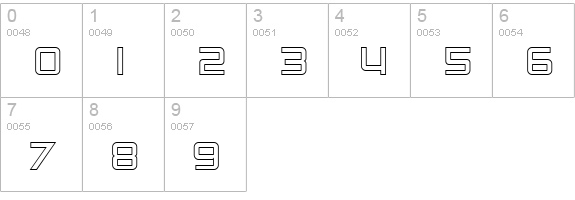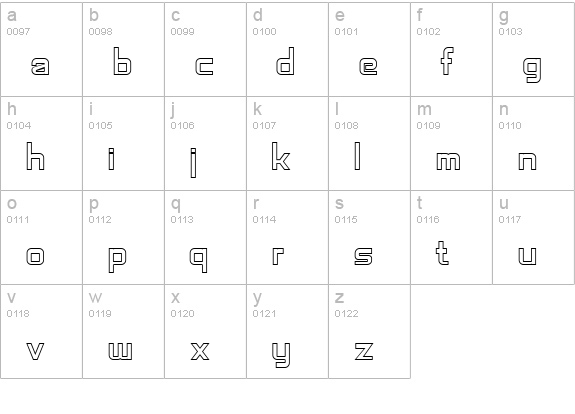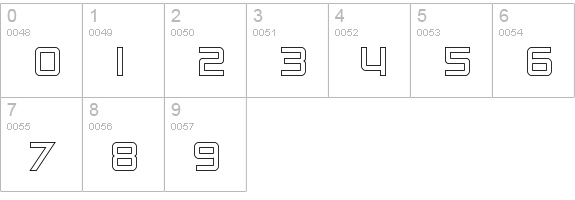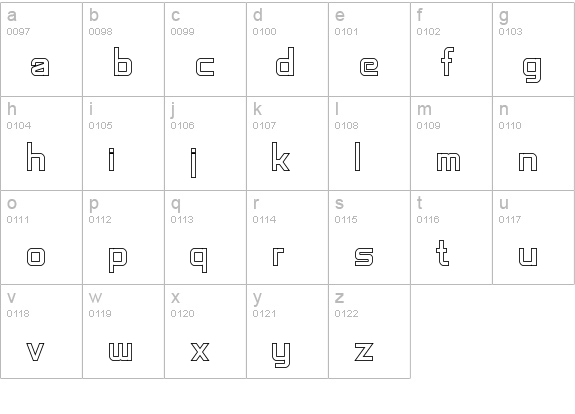
SF Chaerilidae Outline Font Details
SF Chaerilidae Outline is a breathtakingly modern and unique font that will instantly captivate the attention of anyone who sees it. This remarkable font is characterized by its intricate and clean outlines, which give it a sleek and futuristic appearance. It exudes an air of sophistication and elegance, making it the perfect choice for design projects that require a touch of class. With its carefully crafted letterforms and balanced proportions, SF Chaerilidae Outline is a versatile font that can be used for a wide range of creative applications. Whether you're designing a logo, creating eye-catching headlines, or composing engaging marketing materials, this font will undoubtedly elevate your designs to new heights. One of the most remarkable aspects of SF Chaerilidae Outline is that it is freely available to download at FontsMarket.com. This means that you can access this stunning font without any cost or limitations, making it an invaluable asset for both professional designers and casual enthusiasts alike. By offering this font for free, the creators of SF Chaerilidae Outline have truly democratized the world of typography, allowing anyone to embrace and experiment with its artistic potential. So why wait? Download SF Chaerilidae Outline today and unleash your creativity with this extraordinary font. Whether you're embarking on a personal project or working on a professional endeavor, this font is sure to make a lasting impression, setting your designs apart from the rest. Experience the power and beauty of SF Chaerilidae Outline and let your imagination soar to new heights.